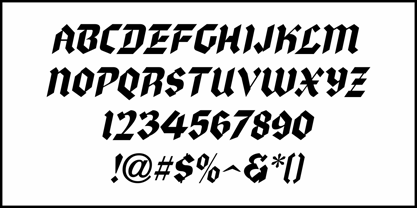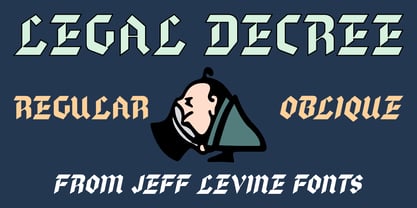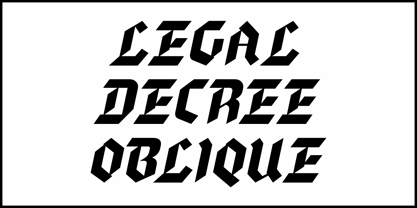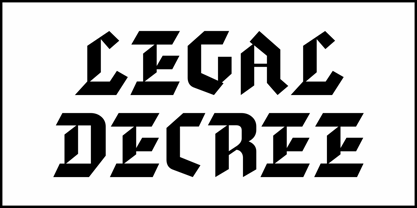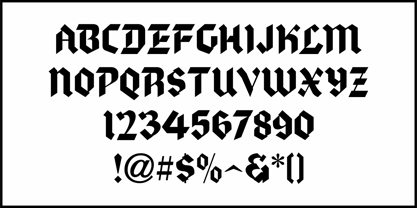
Legal Decree JNL
by Jeff Levine
An example of the Old English/Germanic style text lettering was shown in the 1938 book "Letters and Lettering" by Paul Carlyle and Guy Oring under what they called the "Anglo Category", which was one of many unusual and stylized lettering designs. Legal Decree JNL is the digital version of this type design and is available in both regular and oblique versions.